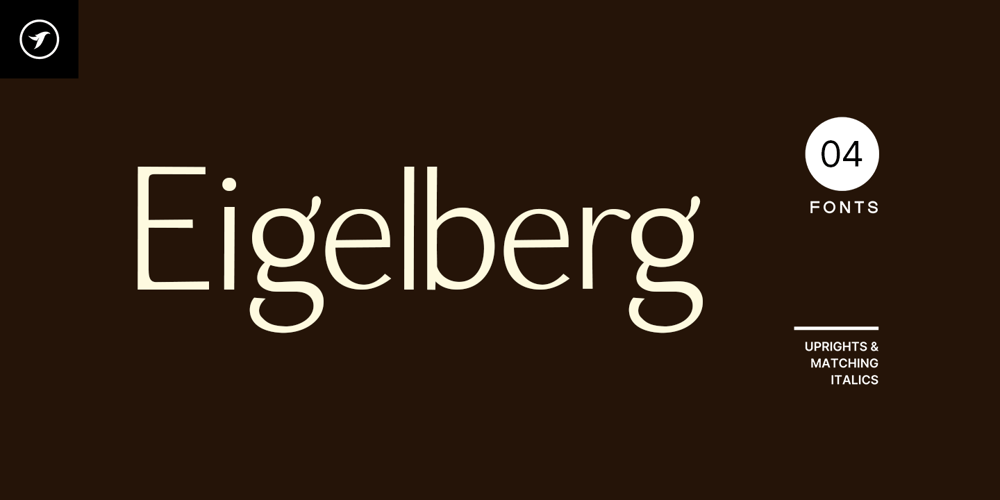
Eigelberg
Eigelberg font
Eigelberg Font Family was designed by Lisha Joseph and published by Designova. Eigelberg contains 4 styles and family package options. EIGELBERG is a unique typeface that evokes a sense of nostalgia and a distinctive charm that sets it apart. This timeless font will add a touch of gravitas and grandeur to any project. Perfect for creating a vintage identity and giving your text a touch of sophistication, this one-of-a-kind font is sure to stand out and make an impactEIGELBERG can be used for multi-purpose textual representations as well as branding, logotypes, and display purposes. It is especially suitable for creating exceptional logos, promotional content, and marketing graphics that can capture your visitors’ attention. By adjusting the letterspacing of the font, you can have more design options for your creative projects. Take a look at the examples above to get a better idea of the potential of this typeface.The EIGELBERG family contains a total of 4 fonts featuring two weights (Regular / Bold) with uprights and italics equivalent of each weight. Each weight includes extended language support including Western European & Central European sets. A total of 277 glyphs are included. TECH SPECS: Total number of fonts in the family: 04 (Regular, Bold, Italic, Bold Italic) Total number of glyphs in each font: 277 Extended Language Support: Afrikaans • Albanian • Asu • Basque • Bemba • Bena • Catalan • Cebuano • Chiga • Colognian • Cornish • Corsican • Danish • Dutch • Embu • English • Estonian • Filipino • Finnish • French • Friulian • Galician • German • Gusii • Ido • Indonesian • Interlingua • Interlingue • Irish • Italian • Javanese • Jju • Kabuverdianu • Kaingang • Kalaallisut • Kalenjin • Kamba • Kikuyu • Kinyarwanda • Kurdish • Ligurian • Lojban • Lombard • Low German • Luo • Luxembourgish • Luyia • Machame • Makhuwa • Makhuwa-Meetto • Makonde • Malagasy • Malay • Manx • Meru • Morisyen • Nheengatu • North Ndebele • Northern Sotho • Norwegian Bokmål • Norwegian Nynorsk • Nyanja • Nyankole • Occitan • Oromo • Portuguese • Rejang • Romansh • Rombo • Rundi • Rwa • Samburu • Sango • Sangu • Sardinian • Scottish Gaelic • Sena • Shambala • Shona • Slovenian • Soga • Somali • South Ndebele • Southern Sotho • Spanish • Sundanese • Swahili • Swati • Swedish • Swiss German • Taita • Taroko • Teso • Tsonga • Tswana • Turkmen • Vunjo • Walloon • Walser • Welsh • Western Frisian • Wolastoqey • Xhosa • Zhuang • Zulu